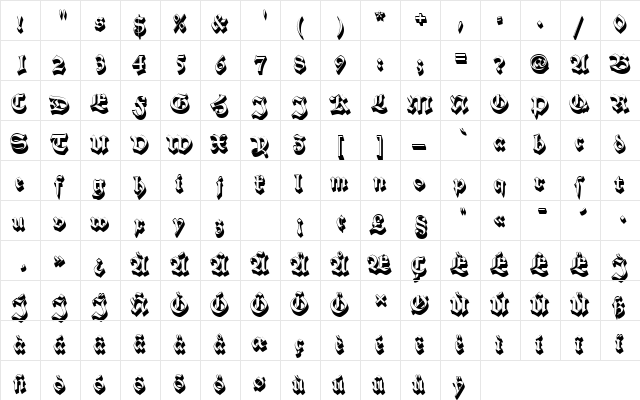
Alte Schwabacher Shadow Regular
Design Context for Alte Schwabacher Shadow Typeface
Alte Schwabacher Shadow brings ornamental detail and strong personality to headlines and identities, where visual impact matters more than quiet functionality.
Font Pairing: Pair with a clean neutral sans-serif for body copy to let Alte Schwabacher Shadow's character lead without overwhelming the composition.
Pro Tip: Use Alte Schwabacher Shadow exclusively at display sizes — it was designed to be seen, not read at length. Let a neutral companion handle body copy.